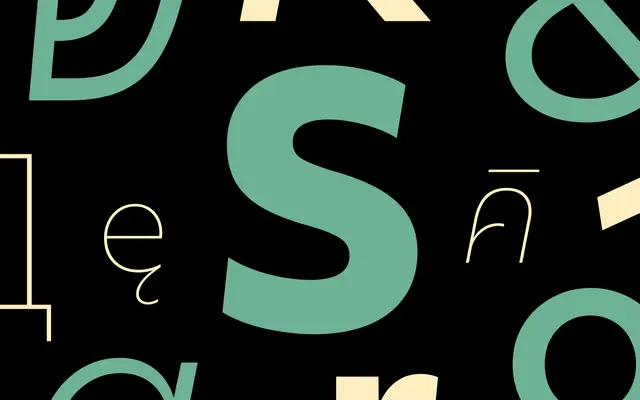
Objektiv
Dalton Maag · Bruno Mello, Sahar Afshar, Carlos De Toro, Hanna Donker, Maria Fontenelle, Pablo Gamez, Ben Jones, Jonny Pinhorn
Objektiv specimen from Dalton Maag
A clean geometric sans system by a Dalton Maag team, with Mk1, Mk2 and Mk3 stylistic variants and ten writing systems.
A geometric sans system drawn by a team of Dalton Maag designers including Bruno Mello, Sahar Afshar, Carlos De Toro and Jonny Pinhorn. Three stylistic variants (Mk1, Mk2 and Mk3) swap alternates wholesale for adaptable humanism, classically geometric rounds, low-contrast strokes and blunt vertices. The variable font runs Weight from Hairline to Black with slanted italics, and the family supports ten writing systems including Arabic, Cyrillic, Devanagari, Greek, Hebrew and Thai. Built for branding, ui and signage at scale.
Dalton Maag describe Objektiv as a clean geometric sans with unique human appeal, with extensive Weight and Italic variable axes and three stylistic variants (Mk1, Mk2 and Mk3) for flexibility across applications and media.